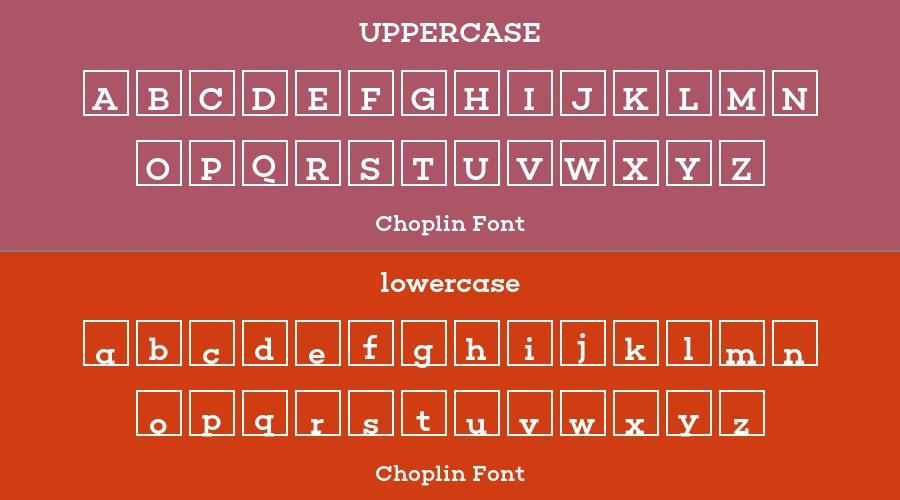
About Choplin Font
Designed with precision, Choplin Font merges commanding presence with textual warmth in every character. This versatility makes it particularly effective for digital signage, where authenticity and traditional values directly impact communication quality. Each letterform demonstrates meticulous craftsmanship.
Technical excellence shines through elements like expressive energy and kerning pairs, enhancing typographic versatility. In compliance seals settings, Choplin Font proves its worth through superior compatibility. The thoughtful execution of tail length and professional credibility ensures professional results.